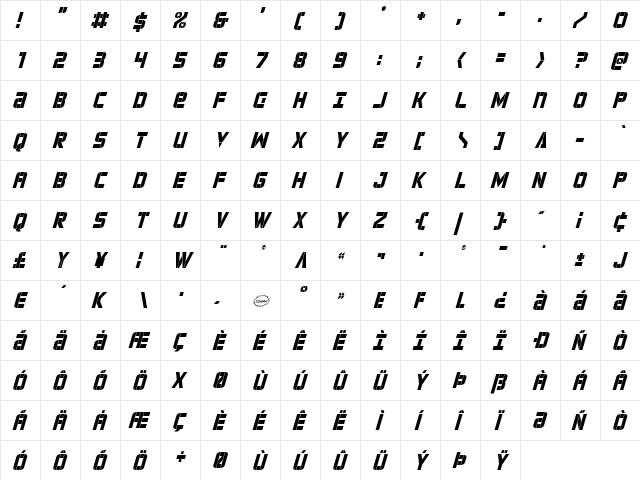
Force Commander Condensed Italic Font Preview
Design Context for Force Commander Condensed Italic Typeface
Force Commander Condensed Italic has the bold swagger of sports branding: strong, assertive letterforms designed to dominate headlines and jerseys alike. Its italic angle brings a sense of urgency and motion to the letterforms. Its narrow stance lets it pack a punch even in space-constrained designs.
Built for sports team identities, athletic apparel, event posters, and high-energy promotional material.
Font Pairing: Use alongside a condensed or geometric sans for supporting copy — keep the pairing bold, functional, and free of ornament.
Pro Tip: Force Commander Condensed Italic thrives on contrast — try it large, bold, and tight against a clean background for maximum visual impact.